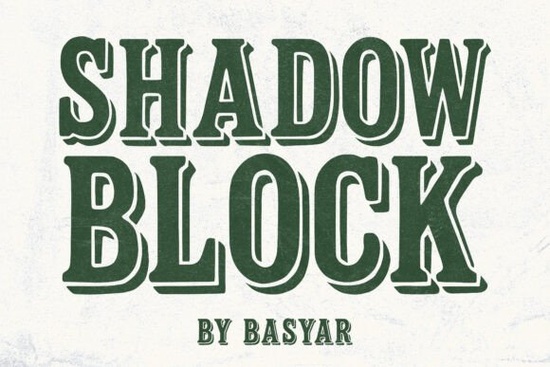
If you're working on a vintage poster, retro branding, or bold signage, the Shadow Block Font deserves a spot in your toolkit. It's a heavy, blocky display typeface with a western-inspired drop shadow that gives any headline an immediate sense of depth and old-school character. Whether you sell print-on-demand products or design for clients, this font brings a solid Americana aesthetic that's hard to ignore.
What Does Shadow Block Font Look Like?
Shadow Block is built around thick, high-contrast letterforms with a clean serif structure. The defining feature is its solid drop shadow, which sits behind each character and creates a 3D layered effect without any extra work on your part. The overall shape is angular and blocky, pulling from vintage western and mid-century sign-painting traditions.
It works best at larger sizes think headlines, banners, and display text where the shadow detail and bold proportions can really stand out.
Where Should I Use a Font Like This?
This typeface was designed for projects that need to command attention. Here are some common use cases:
- Event posters concerts, rodeos, fairs, or any event with a retro or Americana theme
- T-shirt and merch designs especially for band merch, motorcycle shops, or vintage-style brands
- Logo design for businesses that want a strong, confident wordmark
- Signage and packaging barbecue joints, breweries, barbershops, and similar businesses
- Editorial layouts magazine covers, blog graphics, or social media headers with a bold aesthetic
- Print-on-demand products mugs, tote bags, stickers, and posters where bold typography sells
The shadow effect adds visual interest without requiring additional design layers, which saves time in your workflow especially useful if you're producing designs in volume.
How Does It Compare to Other Display Fonts?
Shadow Block fills a very specific niche: vintage western bold display. But depending on the mood of your project, you might want to pair it with or consider alternatives:
- If you need a refined vintage serif without the shadow effect, a classical inscriptional typeface could work well for more elegant projects
- For something warmer and more casual, a relaxed summer-inspired display style offers a laid-back alternative
- Working on a feminine or playful design? a whimsical decorative option takes things in a completely different direction
- If you want sharp modern impact without the vintage feel, a contemporary bold display face might suit your layout better
- For fun, rounded, and approachable projects, a bubbly playful typeface is worth exploring
That said, if your project specifically calls for western charm, vintage grit, and bold shadow effects, Shadow Block is hard to beat. It does one thing and does it well.
Does It Work for Print-on-Demand Sellers?
Absolutely. Print-on-demand sellers often need fonts that are instantly readable at a glance and carry strong visual weight on products like t-shirts, posters, and mugs. Shadow Block checks both boxes.
Its built-in shadow eliminates the need to manually add depth effects in your design software, which speeds up production. The bold blocky shapes also reproduce well on different materials and screen types, so the design stays sharp whether it's printed on cotton or displayed on a mockup.
If you run an Etsy shop or sell through platforms like Redbubble or Merch by Amazon, a font like this can help your vintage-themed products stand out in search results and on crowded marketplace pages.
Tips for Getting the Best Results
- Use it at large sizes only the shadow and serif details get lost in small body text
- Pair it with a clean sans-serif for body copy to maintain readability
- Stick to short text headlines, logos, and single words work best
- Test it on dark and light backgrounds to see where the shadow effect reads strongest
- Consider letter-spacing adjustments depending on your layout